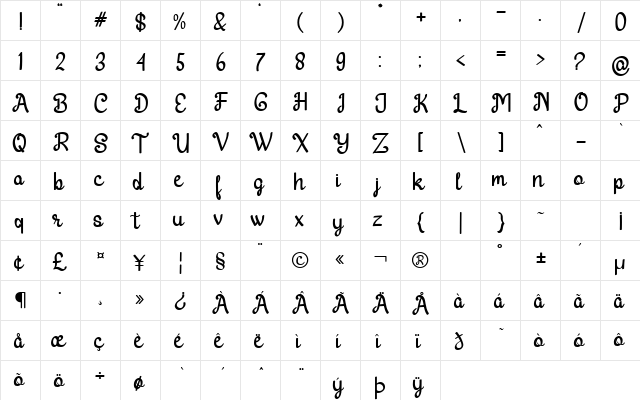
Harton Dafont Regular
| Designer | Jozgandoz 2018 |
Design Context for Harton Dafont Typeface
Harton Dafont is a composed and adaptable typeface that performs quietly and consistently across a wide range of design contexts.